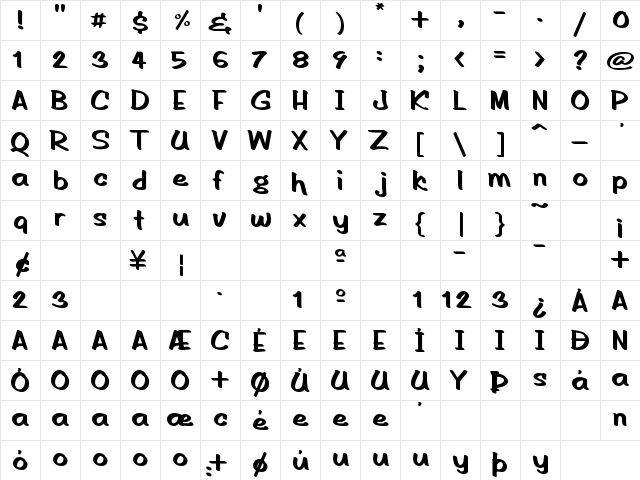
Hand of Rod V 1.1 Regular
| Designer | Hand of Rod V 1.1 |
Design Context for Hand of Rod V 1.1 Typeface
Hand of Rod V 1.1 flows with the natural rhythm of handwritten lettering, making it ideal for designs that call for warmth and personal expression.
Font Pairing: Combine Hand of Rod V 1.1 with a simple geometric sans for maximum contrast — the tension between flowing curves and clean structure is a classic typographic pairing.
Pro Tip: Pair Hand of Rod V 1.1 with a clean sans-serif for supporting text. The contrast between fluid script and geometric structure creates an elegant typographic hierarchy.